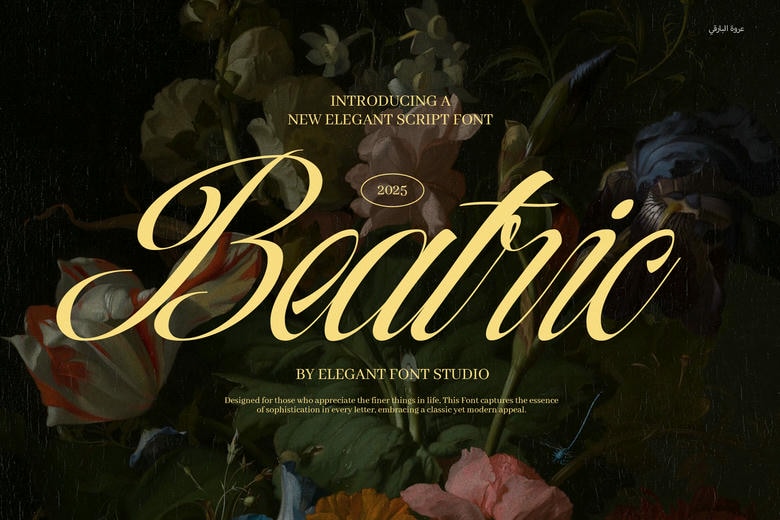
Beatric Font
Beatric Elegant Script Font is the fine contemporary calligraphic typeface which combines the classic beauty with artistic style. The luxury script font was created in an elegant form with smooth curves and flowing lines to enhance your working projects easily. Beatric is the design that would charm, refine, and give a premium look to any design regardless of its purpose: working on a branding concept or getting ready to create a wedding invitation.
The basic package of this beautiful script includes all fashionable ligatures and alternates that can provide the designer with a large choice of combining letters in order to create natural and fluid typography. The typeface is carefully designed to be multifaceted, and this is why it can be of great use in feminine branding and even in premium advertising.
Beatric Calligraphy Script Font